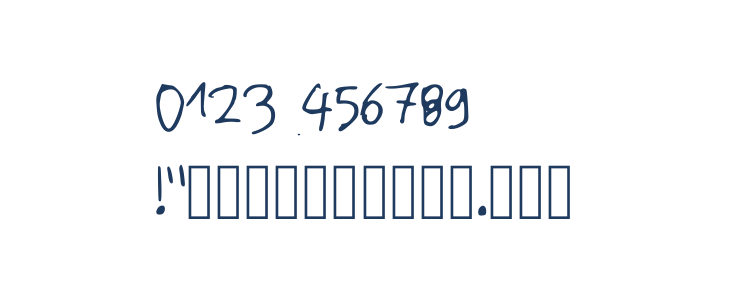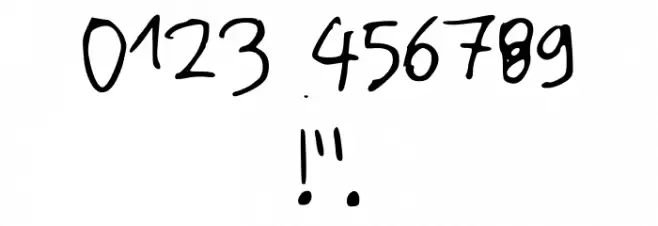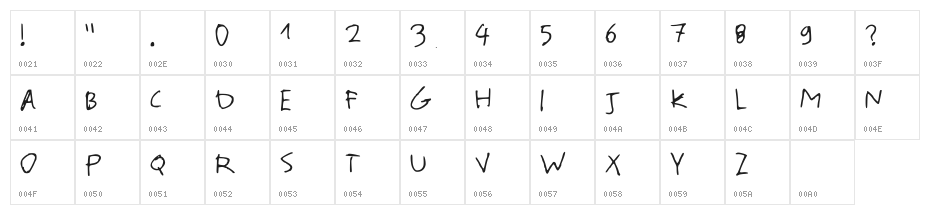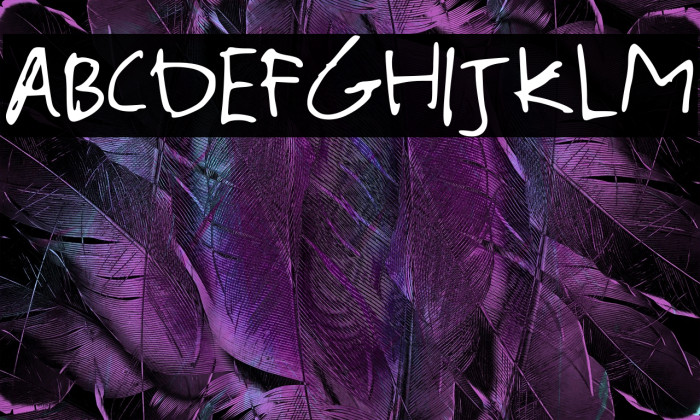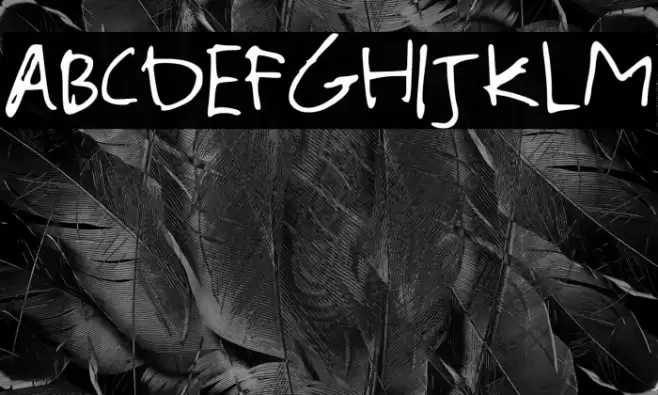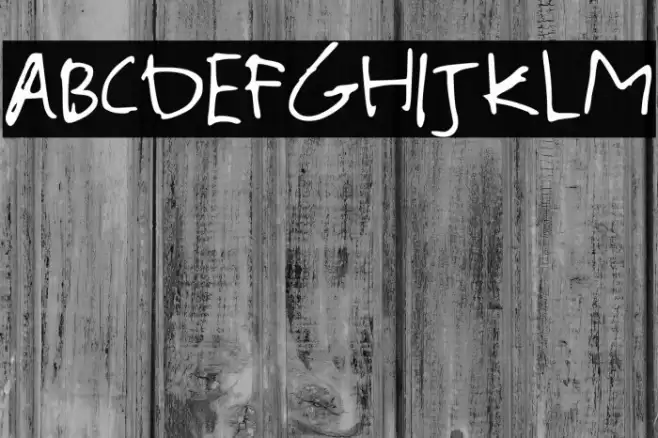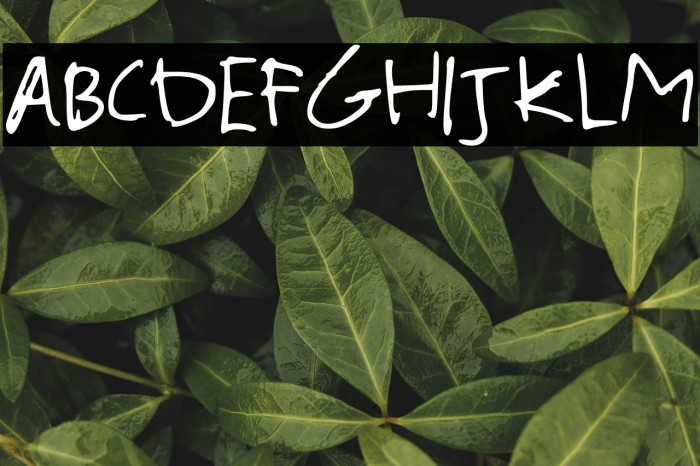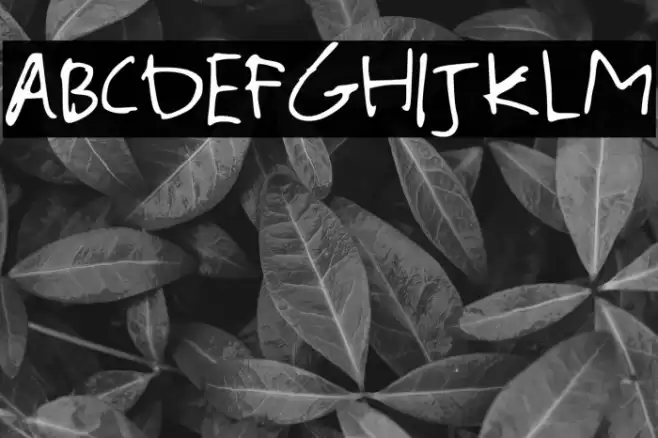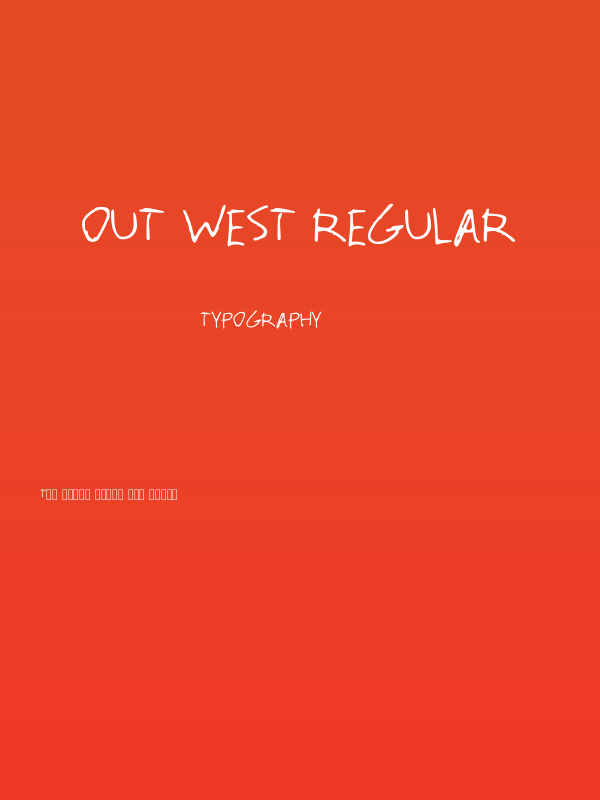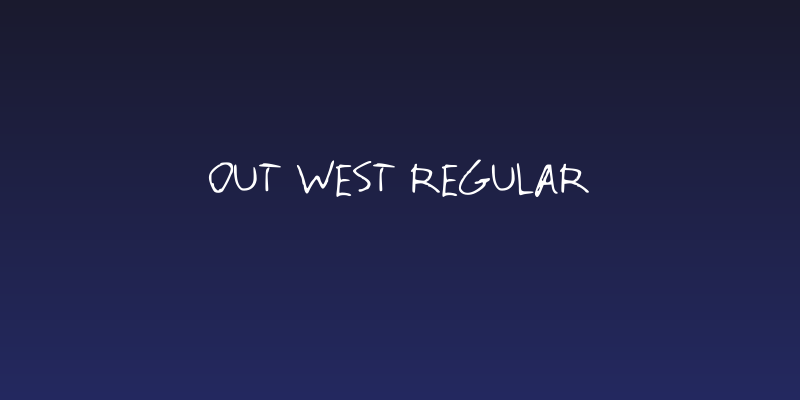
Out West Regular Font
Out West Regular Description
This font features a handwritten style with a casual and organic feel. The characters are slightly irregular, giving it a personal and informal touch. The strokes are uneven, adding to the authenticity of a hand-drawn appearance. The uppercase and lowercase letters maintain a consistent style, with a playful and approachable vibe. The numbers and special characters follow the same aesthetic, ensuring uniformity across all elements. This font is ideal for projects that require a personal touch, such as invitations, greeting cards, or creative branding.
| Overall Style | Casual, Organic |
| Use Case | Creative projects, Personal branding, Invitations |
| Proposed Projects | Ideal for invitations, greeting cards, personal branding, and creative projects. |